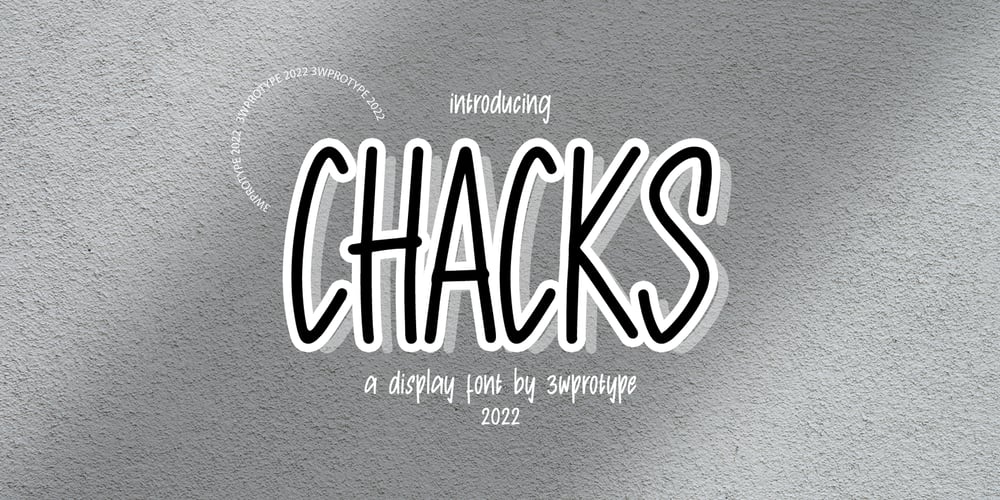
Chacks
Chacks font
Chacks Font Family was designed by I Wayan Wisna Wijaya and published by 3Wprotype. Chacks contains 1 styles and family package options. Introducing, CHACKS Display Font. Concise typeface is fun, and relaxed with natural handwriting. This type of font is very suitable to be applied especially for the needs of letters and quotes, as well as various other formal forms such as invitations, labels, magazines, books, greeting/wedding cards, packaging, fashion, make up, stationery, novels, labels or all kinds of advertising purposes.